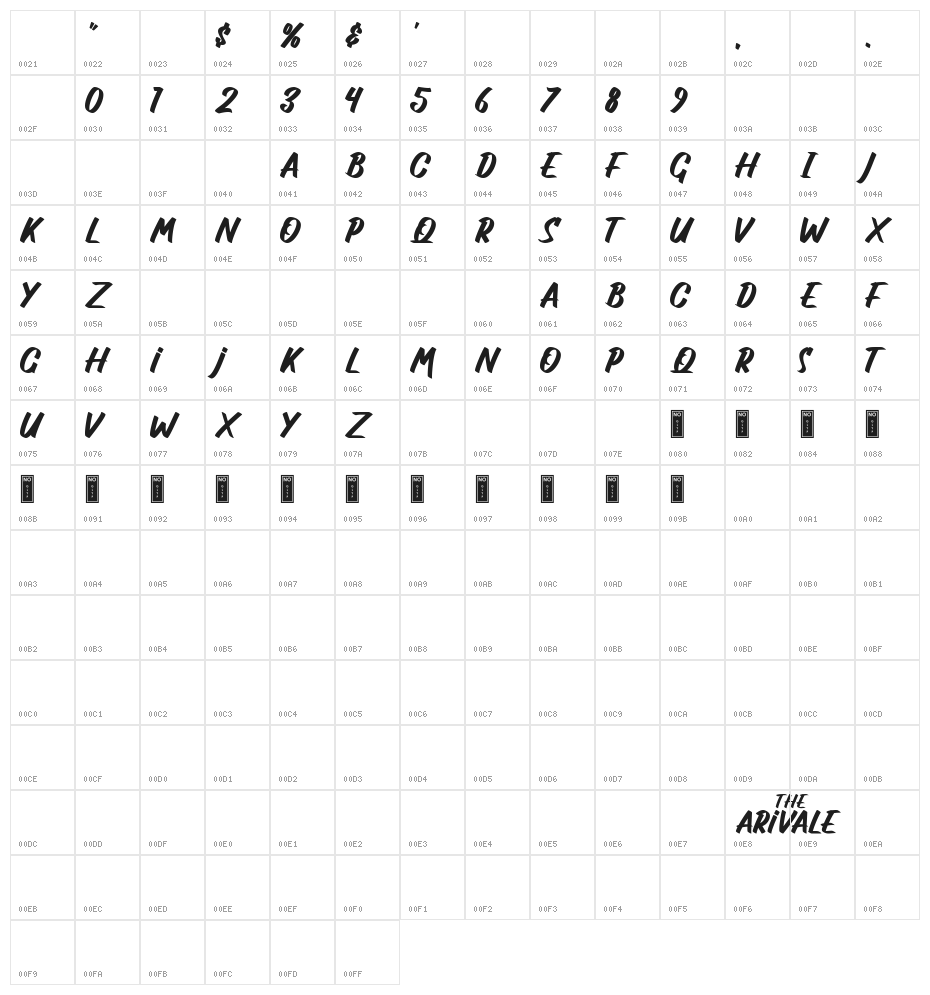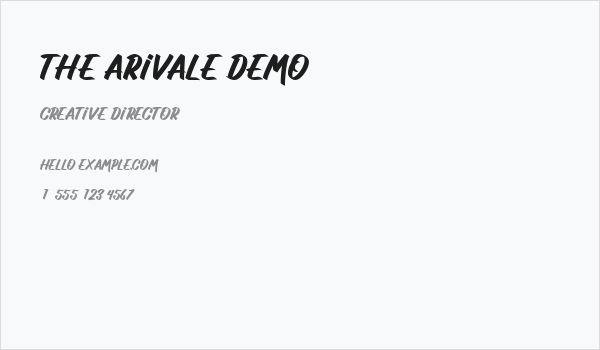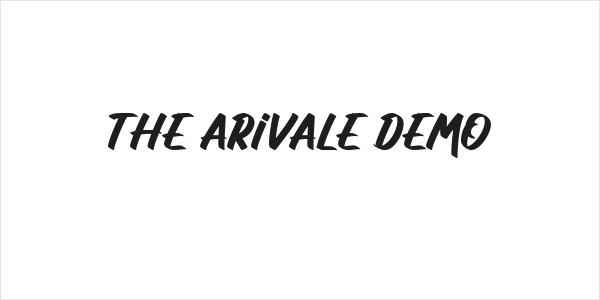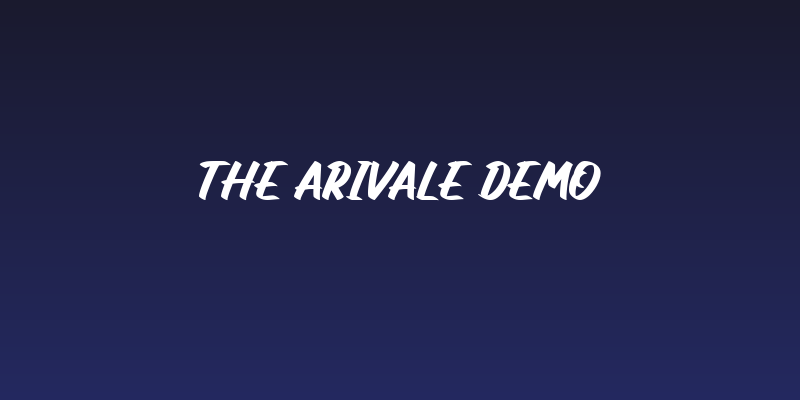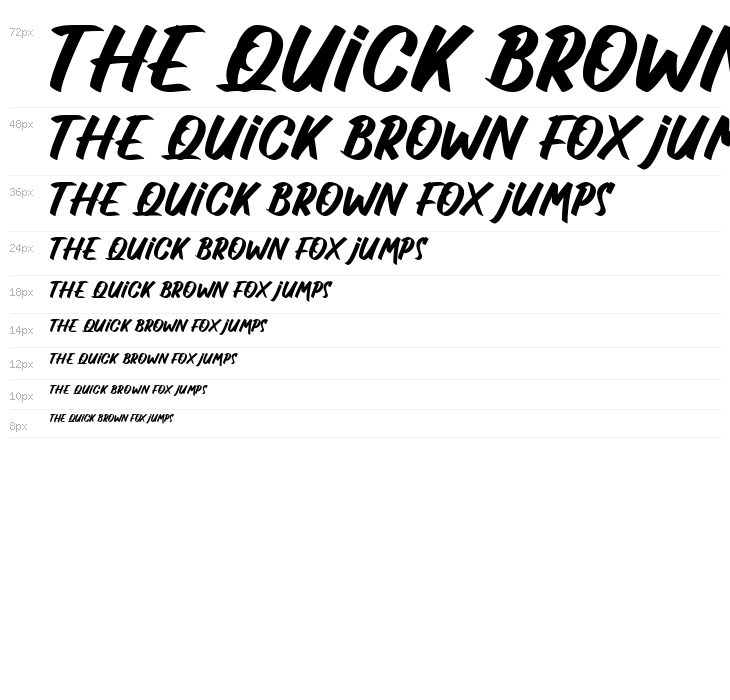
The Arivale Demo Font
The Arivale Demo Description
This font features a bold and dynamic script style, characterized by its thick, sweeping strokes and a sense of movement and energy. The uppercase and lowercase letters maintain a consistent flow, with a slight slant that adds to the overall fluidity. The numbers and special characters are designed to match the boldness of the letters, ensuring a cohesive look across all characters. The font's dramatic flair makes it suitable for attention-grabbing designs, while its legibility ensures it remains functional. The style is reminiscent of brush lettering, giving it a handcrafted feel that adds a personal touch to any project.
| Proposed Projects | Ideal for branding, logos, posters, and any design that requires a bold, artistic touch. |